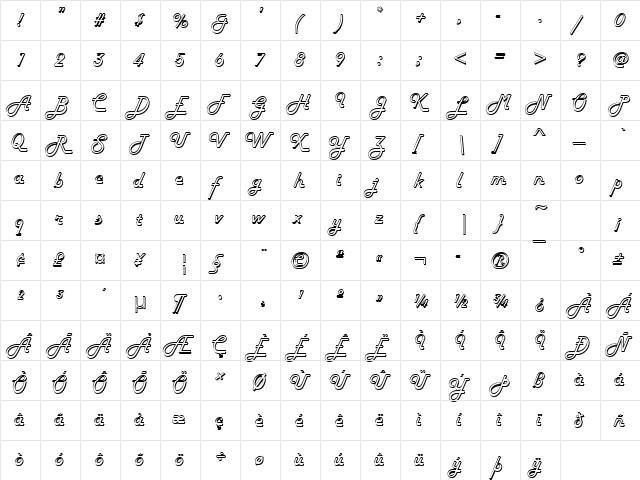
URWHelenD Regular
Design Context for URWHelenD Typeface
URWHelenD is a composed and adaptable typeface that performs quietly and consistently across a wide range of design contexts.